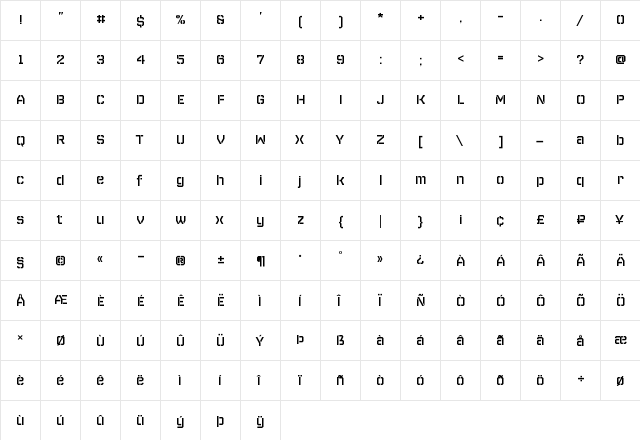
Skipper Stencil Regular
| Designer | Anton Terekhov |
Design Context for Skipper Stencil Typeface
Skipper Stencil has the rough pragmatism of spray-painted stencil signage, adding a raw, street-level authenticity to designs.
A strong choice for packaging that needs edge, warehouse aesthetics, and rough-and-ready visual identities.
Pro Tip: Use Skipper Stencil at large sizes on packaging, posters, or apparel where the stencil cutaways read clearly. Avoid small sizes where those gaps become visual noise.